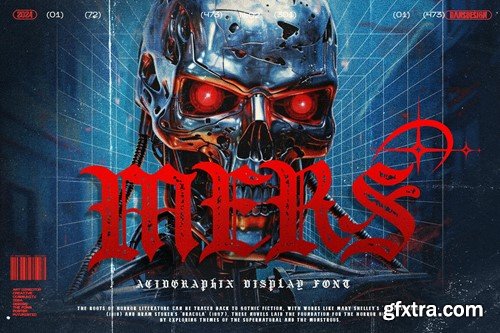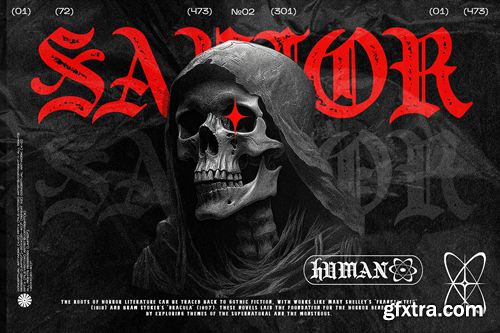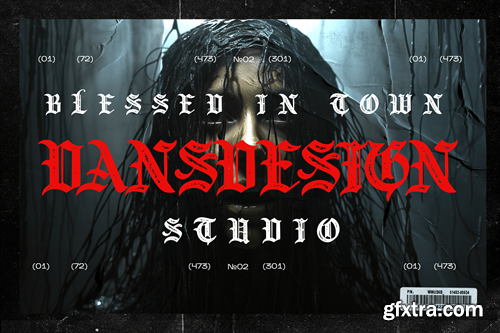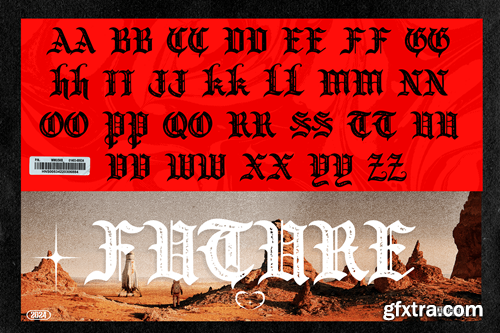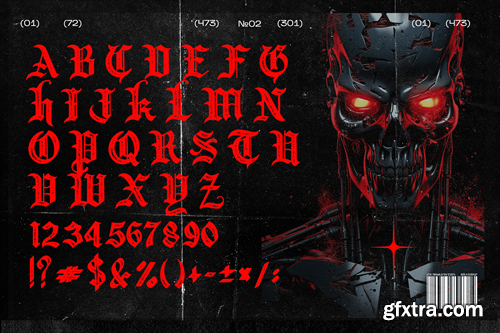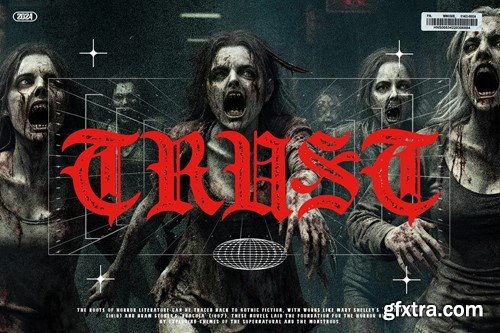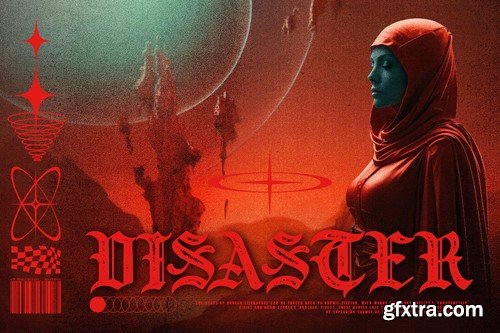
MERS Metal Gothic Futurisme Font H96AVGY
MERS Metal Gothic Acidgraphix Futurisme Font
MERS Metal Gothic Acidgraphix Futurisme Font a distinct, highly detailed, and chic Blackletter font. It would make a great choice for exquisite retro-urban designs, tattoo business branding, logos, vintage designs, movie, poster, apparel, illustration, and more. MERS Metal Gothic Acidgraphix Futurisme Font (OTF/TTF) MERS Metal Gothic Acidgraphix Futurisme Font (WEB TT/PS) Featured : Accents (Multilingual characters) PUA encoded Numerals and Punctuation (OpenType Standard) Thanks for downloading